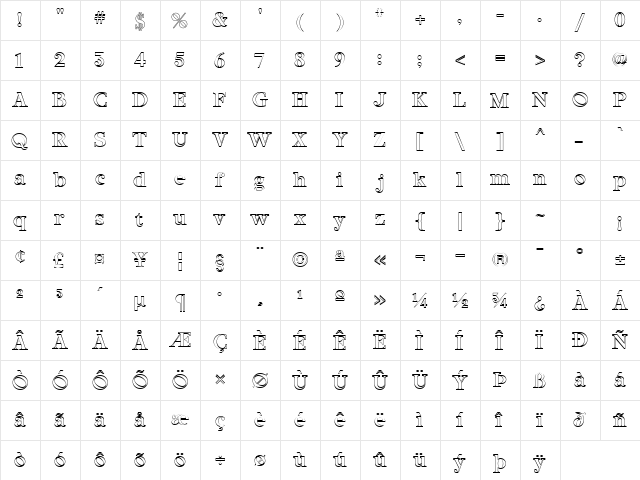
Rubino Serif Outline Regular
Design Context for Rubino Serif Outline Typeface
Rubino Serif Outline brings ornamental detail and strong personality to headlines and identities, where visual impact matters more than quiet functionality.
Font Pairing: Pair with a clean neutral sans-serif for body copy to let Rubino Serif Outline's character lead without overwhelming the composition.
Pro Tip: Treat Rubino Serif Outline as the centrepiece of your typographic hierarchy. One strong heading set in a decorative face can carry an entire layout.